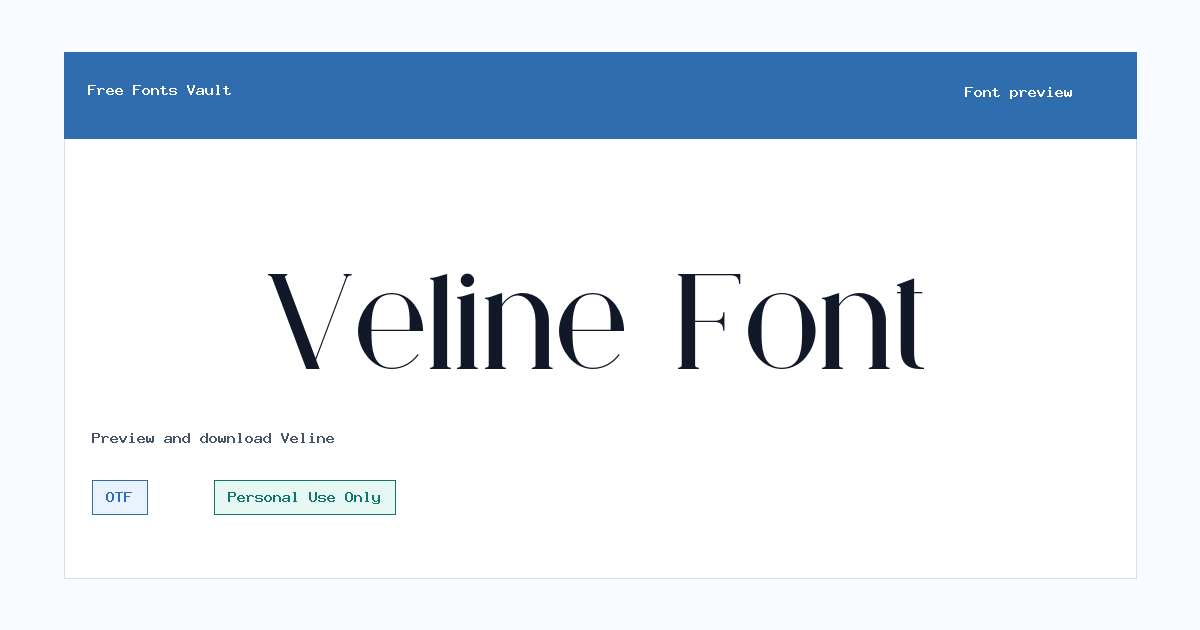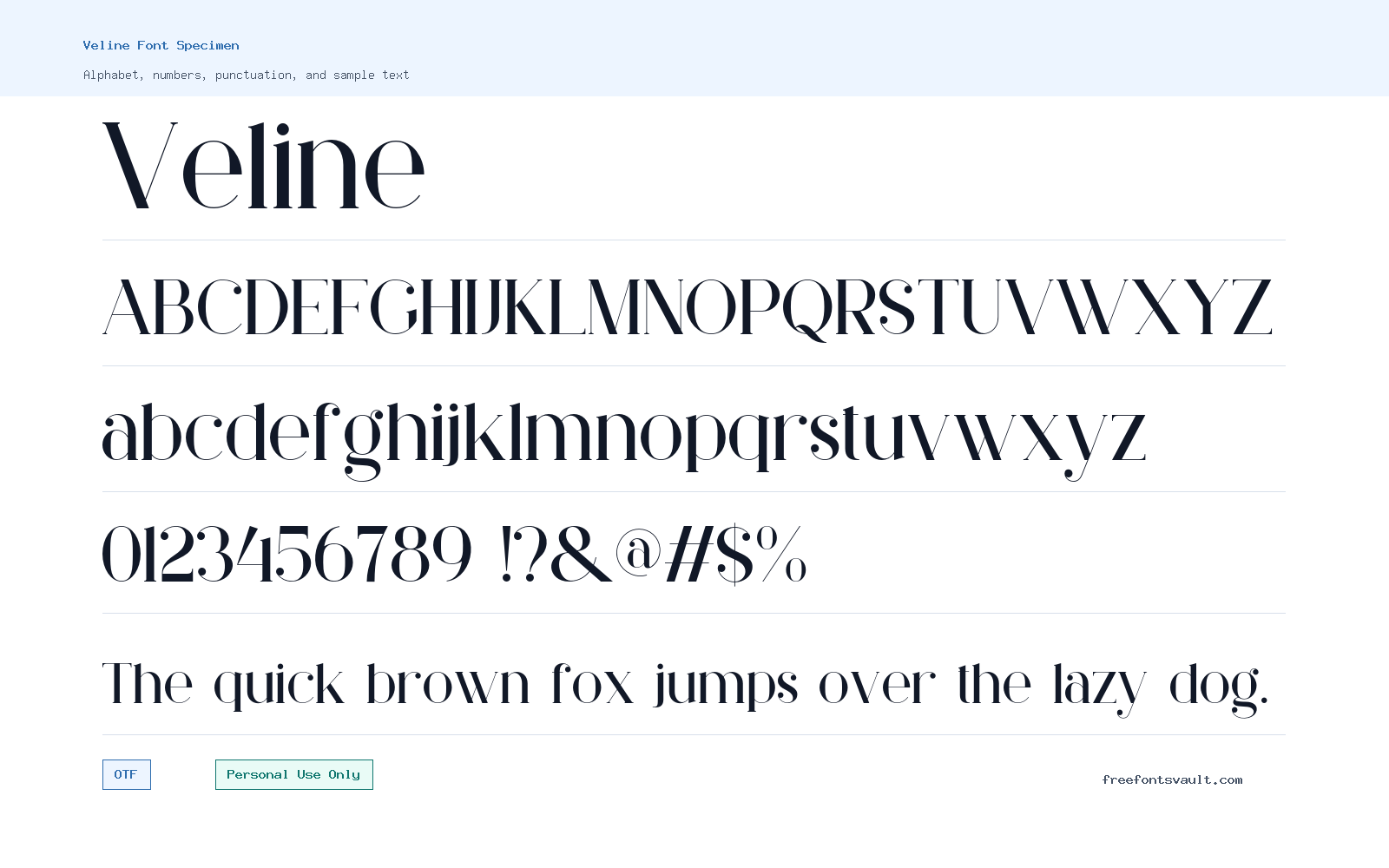
Veline
Veline font.
Veline is a personal-use serif font from ErmediaStudio, offered in a regular OTF style. It is a good choice to test when you need a more polished text style for titles, short branding mockups, invitations, or display-focused layouts.
About Veline Font
Veline is identified as a serif font, so it is best approached as a typeface for projects where letter shape and tone matter more than dense reading. Use the preview box to test your own words before downloading, especially names, headings, and short phrases. Serif fonts can change character quickly depending on spacing, capitalization, and size, so previewing real text is more useful than judging it from a sample alone.
- Serif style suited to headings, names, invitations, and short display text
- Personal invitations, cards, and printable quote designs
- Logo concepts, title layouts, social graphics, and short editorial headings
Who designed Veline?
Veline is listed with ErmediaStudio as the designer.
Is Veline good for body text?
Test it first. Since only a regular serif style is listed, it is safer to use Veline for headings, names, and short display text unless your preview confirms it stays readable in longer passages.